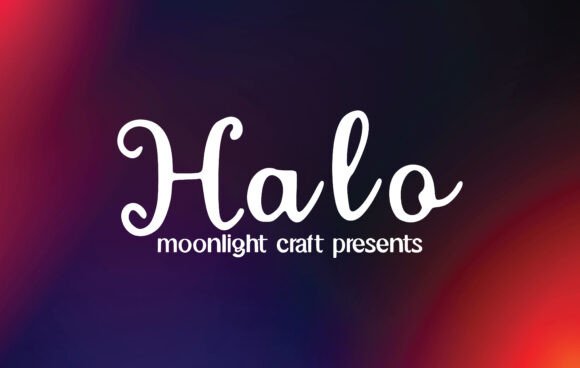
Halo Font Download Premium Font : Looking for a font that feels warm, elegant, and effortlessly creative? Meet Halo Font — a lovely handwritten script designed to add beauty, authenticity, and a personal touch to any project.
In this guide, we’ll explore why designers fall in love with Halo Font, its best uses, creative design ideas, where to download it, free alternatives, and answers to common questions. Whether you’re working on a logo, social media post, or wedding invitation, Halo Font has the potential to elevate your designs to a whole new level.
What is Halo Font?
Halo Font is an elegant, handwritten script known for its smooth curves and graceful flow. Each letter feels as though it was carefully written by hand, giving text a personal and artistic touch.
Unlike stiff or purely decorative scripts, Halo strikes a perfect balance:
• Soft and romantic, yet legible
• Stylish and unique, yet versatile for different design needs
This makes it ideal for creative professionals, brands, or anyone wanting to add charm and personality to their work.
Why Designers Love Halo Font
Authentic Handwritten Feel:
Halo Font brings natural human warmth to digital designs.
🎨 Perfect for Branding:
Ideal for boutique logos, artisan products, and personal brands that want to feel approachable and elegant.
📱 Social Media Ready:
Eye‑catching enough for quotes, Instagram posts, and Pinterest graphics.
💌 Romantic Vibe:
Its flowing script makes it perfect for wedding invitations, greeting cards, or love notes.
🖋 Easy to Read:
Though handwritten, its clean lines keep it legible at various sizes.
Best Uses for Halo Font
Halo Font shines in projects where you want to combine elegance, creativity, and personality:
Logo Design:
Boutique shops, handmade businesses, photographers, or beauty brands.
Branding Materials:
Business cards, thank‑you notes, product tags, and packaging.
Social Media Graphics:
Quotes, captions, highlight covers, or promotional posts.
Wedding & Event Invitations:
Save‑the‑dates, menus, seating cards, or programs.
Merchandise & Apparel:
T‑shirts, tote bags, mugs, and gifts with custom quotes.
Digital Products:
E‑book covers, digital planners, or blog headers.
Its blend of romance and clarity helps text stand out beautifully.
Design Tips for Using Halo Font
🌿 Pair with Simpler Fonts:
Use Halo Font for titles or accents, and combine with a clean sans‑serif (like Lato or Montserrat) for body text.
💌 Use Soft Colors:
Pastels, blush, gold foil, or watercolor textures bring out its romantic feel.
🖼 Mind Your Background:
Ensure enough contrast — dark text on light backgrounds (or vice versa) keeps it legible.
📏 Keep Text Short:
Halo shines in short phrases, names, or headlines rather than paragraphs.
Try Alternates & Ligatures:
If your version of Halo Font has alternates, use them to add style and variation.
Creative Design Ideas with Halo Font
💍 Wedding Invitation:
Couple’s names in large Halo Font, paired with serif details.
📸 Photographer Logo:
Name in Halo Font above a minimal camera icon.
📱 Instagram Post:
Short quote like “Dream big” in white Halo Font over a pastel photo.
🎁 Thank‑You Card:
“Thank you” hand‑lettered in Halo Font, printed in metallic foil.
🛍 Boutique Bag:
Brand name in Halo Font printed over a blush background.
Why Halo Font Stands Out
Halo Font feels special because it adds a human touch that digital fonts often lack. Its carefully crafted letters feel artistic and alive, making designs feel warmer and more authentic.
Whether you’re creating branding for a boutique, a wedding suite, or a simple Instagram quote, Halo Font makes your words feel heartfelt and genuine.
Final Thoughts: Add Heartfelt Elegance with Halo Font
Halo Font isn’t just a font — it’s a way to add personality, romance, and beauty to your creative projects. From logos and invitations to social media and branding, it helps words feel personal and unique.